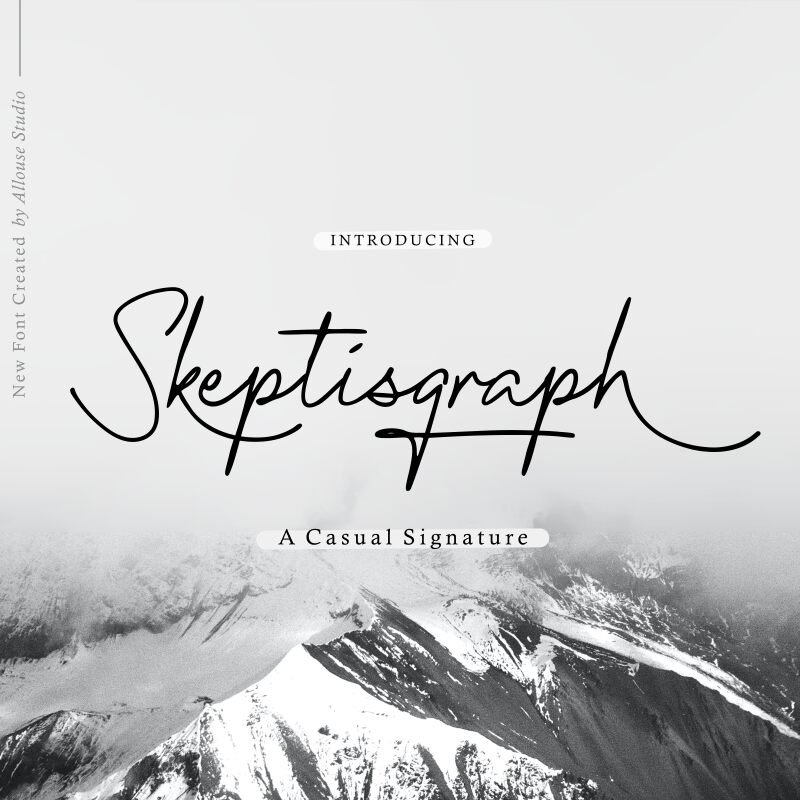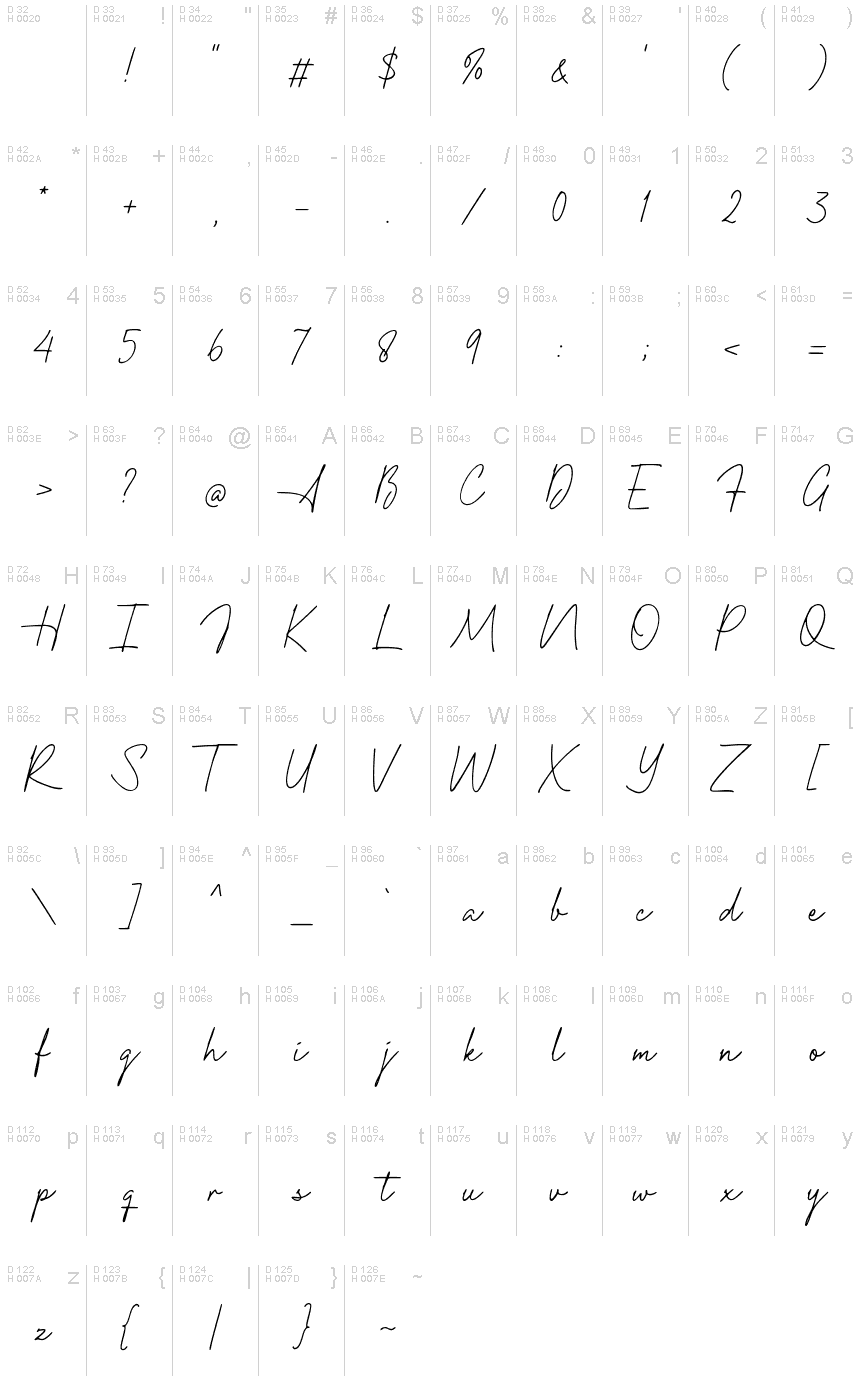
Skeptisgraph
Skeptisgraph, a captivating and versatile handwritten font by Allouse Studio, exudes an air of elegance and playfulness. With its extra-light weight, this font is perfect for projects that require a delicate touch and a touch of whimsy. Its slender strokes effortlessly add grace to wedding invitations, greeting cards, and feminine branding materials. Additionally, Skeptisgraph's refined yet approachable style makes it an ideal choice for book covers, editorial designs, and blog headers. Let your imagination roam free with Skeptisgraph – the font that adds a dash of charm to any project.